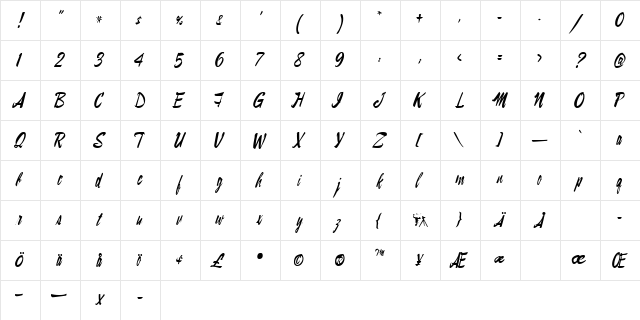
LampoonBrush2 Regular
Design Context for LampoonBrush2 Typeface
LampoonBrush2 flows with the natural rhythm of handwritten lettering, making it ideal for designs that call for warmth and personal expression.
Font Pairing: Combine LampoonBrush2 with a simple geometric sans for maximum contrast — the tension between flowing curves and clean structure is a classic typographic pairing.
Pro Tip: Use LampoonBrush2 for short runs of text — names, titles, or taglines. Extended body copy in script faces tires the eye quickly.